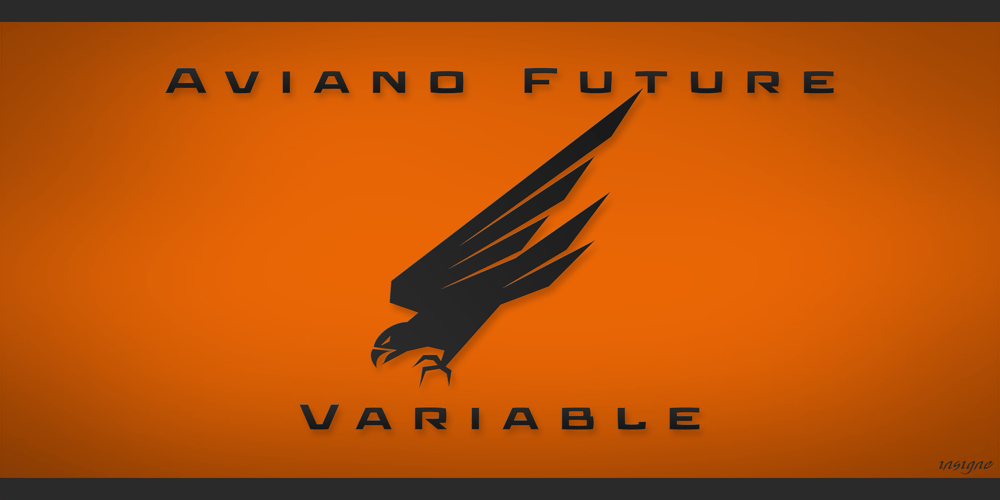
Aviano Future Variable Font Family was designed by Jeremy Dooley and published by insigne. Aviano Future Variable contains 2 styles and family package options. Unleash Futuristic Brilliance with Aviano Future VariableBecause you demanded it, the renowned Aviano series is back with a game-changing addition: Aviano Future Variable. This futuristic sans serif typeface features strong letterforms that will make your designs command attention.Bold, Futuristic DesignAviano Future Variable is a medium-contrast sans serif titling face with a bold and innovative aesthetic. Its unique bowed square shape offers an eye-catching appearance that is both distinctive and memorable. Thanks to its variable axis, you can select any weight without losing clarity or legibility.Versatility Meets PowerThe expanded forms of Aviano Future give its letterforms heft and intensity. Building on the award-winning traits of the original Aviano, this typeface elevates your designs with powerful yet adaptable title faces.Endless Creative PossibilitiesPacked with OpenType capabilities, Aviano Future Variable comes in ten different weight instances and features “fast” italic forms for added emphasis. Want to experiment with more traditional rounded forms, swash styles, or Art Deco alternates? With 400 alternate characters and twelve style sets—including Art Deco-inspired alternates, small forms, tough swash, constructivist titling, and traditional stylistic alternates—the possibilities are endless.Global Language SupportAviano Future also includes 40 discretionary ligatures for artistic typographic compositions. Accommodating a variety of languages, this family added Cyrillic support in 2022, ensuring your designs resonate with a global audience.Part of the Extensive Aviano FamilyExplore an extensive selection of sans serif typographic systems within the Aviano collection. Whether used alone or in combination, these typefaces suit the needs of any project. The family’s fonts—Aviano, Aviano Serif, Aviano Sans, Aviano Didone, Aviano Flare, Aviano Copper, and Aviano Slab—have been meticulously designed for maximum impact and usability at any size.Elevate Your Designs TodayFor skilled designers aiming to create technological, futuristic, or epic visuals, Aviano Future Variable is the perfect choice. Whether you’re crafting a logo, poster, flyer, website header, or banner ad, this typeface will make your work stand out from the competition.Why Wait?Reach new heights with the exciting and versatile Aviano Future Variable. Elevate your brand and create designs that leave a lasting impression.Get Aviano Future Variable now and set your creativity free!